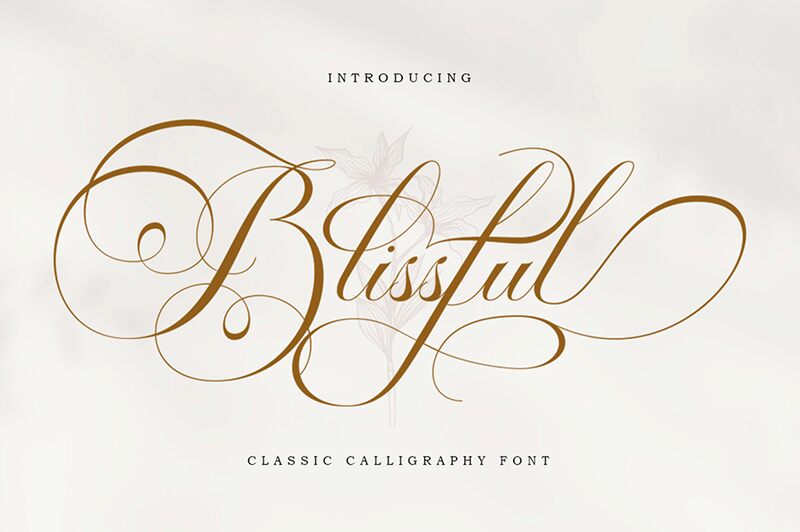
BlissfulScript
Blissful Script font is a light calligraphy typeface from Romi Rahmadi with decorative elements that flow like inspiration in your creative work. Impossible elegance, sophistication, and confidence spring out of this free font’s formal and professional character everywhere you use it.
Make your print projects and digital works blissful—like its name—through classic books covers and titles, elegant invitations including wedding cards, branding and visual identities, social media posters, magazines headlines or model photography signatures.